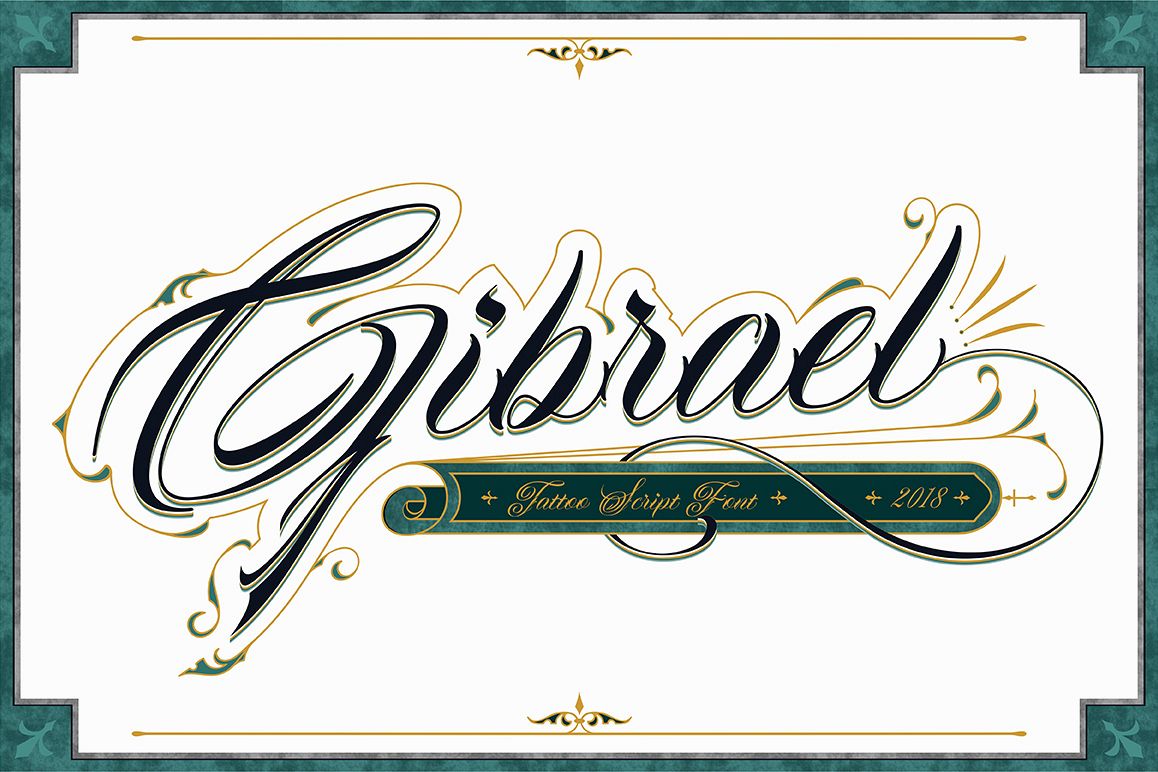
Gibrael | Font
Gibrael
Gibrael is truly a perfect script for any project that's need delicate typeface such as custom name, greeting card, create logos, etc. A handy font for tattoo designer and artsy creative people! It's a beautiful, elegant, clean and unique typeface you need to have! Contains over 600 glyphs, it has many alternate characters so you can make a beautiful decorative type easily.